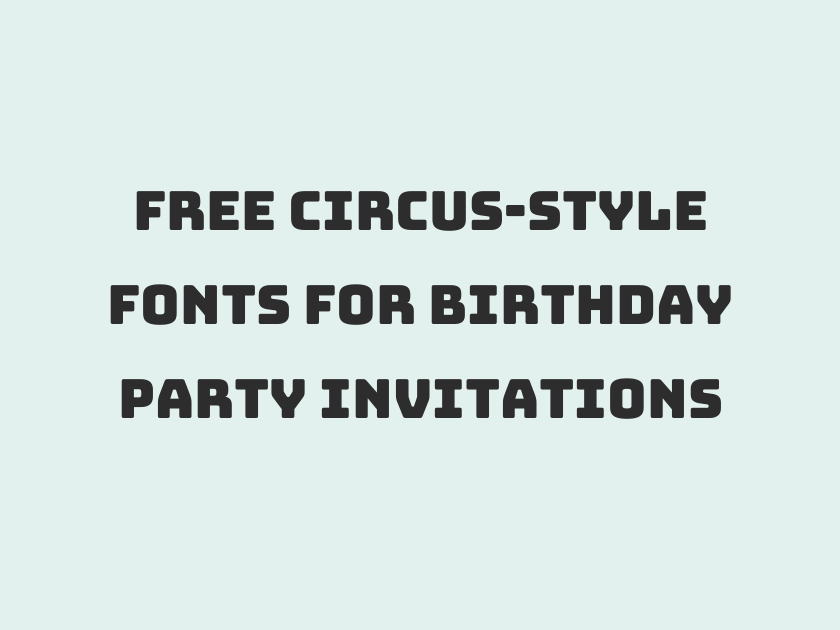
70 Best Free Circus-Style Fonts for Birthday Party Invitations
Circus and carnival typography carries a built-in sense of ballyhoo that suits birthday invitations perfectly, especially for kids’ parties, first birthdays, and any big-top-themed celebration. Bold poster lettering, sideshow banner scripts, and bubbly rounded letterforms all conjure that same midway excitement long before a single balloon gets tied. The good news for anyone designing invites, banners, or party favors is that free Google Fonts now cover nearly every corner of that vintage fairground look, from marquee-light display faces to hand-painted sideshow scripts, so there is no need to hunt down a paid circus font when a genuinely great alternative is already available for download.
Whether the party leans toward a classic red-and-white striped tent, a retro carnival midway, or a modern confetti-bright bash, a circus-style Google Font here can set the tone before the guests even open the envelope.
1. Bungee
Bungee was designed for urban signage, and that street-sign boldness translates surprisingly well to circus marquees. Its thick, evenly weighted letterforms read as loud and confident even in small doses, making it a strong choice for a headline like “You’re Invited” on a party poster or banner.
2. Bungee Inline
This inline sibling keeps all of Bungee’s chunky swagger but adds a hollow channel down the center of each letter, giving it a neon-marquee flicker. It works best at larger sizes, where that inline detail can actually be seen.
3. Bungee Shade
A drop-shadow variant that instantly reads as vintage carnival signage, this one gives flat headlines an illusion of dimension without any extra design work. It pairs naturally with a striped or polka-dot background.
4. Bungee Spice
The most decorative member of the Bungee family layers a bright secondary color into each letterform, giving titles a festive, sprinkled look straight out of the box. Save it for short, punchy headlines rather than long lines of text.
5. Bangers
Bangers borrows its energy from vintage comic book lettering, and that same loud, slightly wobbly enthusiasm reads as pure sideshow ballyhoo on a party invite. It has real personality even in a single word, which makes it ideal for a big “SURPRISE!” or a birthday child’s name across the top of the card.
Because it is so expressive, it is best reserved for headlines rather than body copy; at small sizes the exaggerated angles start to lose clarity.
6. Luckiest Guy
Few free fonts say carnival cartoon quite like Luckiest Guy. Its thick, bouncy caps feel hand-painted by a fairground sign artist, and it remains one of the most popular choices for kids’ birthday graphics for good reason.
It pairs nicely with a simpler sans serif for the invitation’s fine print, so the party details stay legible while the headline does the shouting.
7. Fredoka
Fredoka’s soft, rounded shapes give it a friendly, huggable quality that suits younger birthday crowds especially well. The semibold weight has enough presence for a title while staying pleasant and easy to read.
8. Boogaloo
There is a laid-back, retro-poster bounce to Boogaloo that feels closer to a 1960s fairground banner than a modern app icon. It is a solid, slightly quieter alternative to louder display faces when the invitation needs a touch of restraint.
9. Chewy
Chewy looks exactly like its name suggests, thick, glossy, and a little cartoonish, like letters made of taffy. It is a natural fit for candy-themed or carnival-snack birthday invitations.
10. Fredericka the Great
This script has a theatrical, old circus poster flair, with exaggerated flourishes that feel handwritten by a nineteenth-century sign painter. It shines as an accent line, such as “The Ringmaster invites you,” rather than as the main headline font.
11. Rye
Rye leans western wanted-poster, but that same slab-serif, sun-bleached character crosses over beautifully into vintage carnival design. It is a good pick for a rustic or old-fashioned fairground theme rather than a bright modern one.
12. Vast Shadow
A slab serif with a built-in shadow effect, Vast Shadow feels like lettering pulled straight off a weathered circus wagon. It reads best in all caps at a moderate size.
13. Modak
Originally designed for Devanagari script pairing, Modak’s Latin counterpart has a bold, rounded, candy-colored personality that suits a loud, joyful carnival invitation. It is chunky enough to hold up on a busy, illustrated background.
14. Sniglet
Bouncy castles and birthday giggles galore
Sniglet’s pillowy, rounded letterforms feel almost inflated, like a bouncy castle rendered in type. The bold weight gives it enough weight to anchor a headline without losing its playful softness.
• Styles: 2 weights (Regular, Extra-Bold)
15. Baloo 2
Join the carnival for a birthday celebration
Baloo 2 is a rounded, extra-bold display face with excellent legibility even at smaller sizes, which makes it a dependable workhorse for invitation body text that still needs some carnival warmth. It is friendlier and less flashy than many circus display fonts, so it works well as a supporting typeface.
16. Titan One
Fearless fun at the birthday circus
Titan One has the puffed-up, three-dimensional look of a strongman poster, with thick strokes that feel confident and a little heroic. It is a fitting choice for anything with a daredevil, lion-tamer, or strongman theme.
17. Fascinate
A dazzling night at the carnival
Fascinate channels art deco carnival signage, with geometric caps that feel glamorous and a little mysterious, like a fortune teller’s tent. It works especially well for adult milestone birthdays with a glitzy vintage theme.
18. Fascinate Inline
Spotlights on the birthday ringmaster
Fascinate Inline
The inline version keeps that same deco glamour but lightens the visual weight, making it easier to use across a longer headline. Pair it with the solid version of Fascinate for a layered marquee effect.
19. Cabin Sketch
Hand-painted invites for a circus party
Cabin Sketch
Cabin Sketch has a rough, hand-drawn outline that looks like it was sketched with a marker on a party poster. That informal, crafted texture makes it a nice match for DIY-style invitations with paper-cut or watercolor elements.
20. Shrikhand
Festival colors for a birthday jubilee
Bold, rounded, and a little exotic, Shrikhand brings festival energy that suits a carnival theme heavy on color and pattern. It is best used sparingly, as a single word or short phrase, given its dense weight.
• Language support: Latin, Latin Extended, Gujarati
21. Bevan
Step inside the birthday big top
Bevan is a slab serif with a sturdy, old-fashioned printing-press feel, reminiscent of a circus broadside from decades past. It reads clearly even at moderate sizes, making it a safe choice for a subtitle or date line.
22. Alfa Slab One
Bold tickets to the birthday circus
Alfa Slab One is about as loud as slab serifs get, with thick, confident strokes built for posters and banners. It captures that classic circus-ticket boldness and holds up remarkably well printed large on invitations or party signage.
Because of its heaviness, keep lines short; it was built to shout a few words rather than carry a paragraph.
23. Sancreek
Saddle up for a carnival birthday
Sancreek has a rugged, weathered western look that doubles nicely as vintage traveling-circus lettering, the kind found on old wagon signs and sideshow banners. It suits a rustic or old-timey fairground theme especially well.
24. Smokum
Sideshow surprises at the birthday tent
Smokum
With its ornate, curling serifs, Smokum looks like it belongs on an old sideshow banner advertising the bearded lady or the world’s strongest man. It is a fun, characterful choice for a themed section header rather than everyday text.
25. Berkshire Swash
An elegant invitation to the carnival
This swash script adds a graceful, looping flourish to each capital letter, giving it a more refined circus feel, closer to a fairground carousel than a rowdy sideshow. It pairs well as an accent alongside a bolder display font for the main headline.
26. Corben
Vintage circus charm for your celebration
Corben
Corben’s rounded, slightly retro serifs feel pulled from a mid-century carnival sign, warm and a little nostalgic. The bold weight gives it enough substance to anchor an invitation headline while staying easy to read.
27. Chelsea Market
Popcorn stands and birthday balloons
Chelsea Market
There is a friendly, hand-stamped quality to Chelsea Market, like lettering on a carnival food stall sign. It works nicely for menu-style details, such as a party’s cake flavors or activity list.
28. Bowlby One
Big top thrills for a big birthday
Bowlby One is thick, rounded, and unapologetically bold, built for headlines that need to be seen from across the room, or across a party. It has enough presence to stand alone as the star of the invitation.
29. Poetsen One
Funhouse fun for the birthday guest
Poetsen One
Poetsen One offers a rounded, slightly playful boldness without tipping into full cartoon territory, making it a versatile middle ground for both headlines and short subheadings. It keeps a party invite feeling upbeat without being childish.
30. Stardos Stencil
Circus crates and birthday surprises
Stencil lettering has long been tied to circus crates, tent poles, and traveling show equipment, and Stardos Stencil captures that utilitarian charm in bold, rounded caps. It is an easy way to add authentic sideshow texture to an invitation.
31. Rammetto One
Bouncing into another birthday adventure
Rammetto One has a puffy, three-dimensional look, almost like inflated balloon letters, that suits a lighthearted kids’ carnival theme. It is best used at larger sizes where its rounded detailing can really show.
32. Fruktur
A curious carnival birthday awaits
Fruktur
Fruktur mixes a blackletter structure with a quirky, hand-inked feel, giving it an old-world sideshow poster charm. It is unusual enough to make a party headline feel a little mysterious and memorable.
33. Fontdiner Swanky
Retro carnival vibes for your party
Fontdiner Swanky
This one leans mid-century diner more than big top, but its bouncy, hand-lettered retro charm crosses over nicely into vintage fairground design. It is a good option for a birthday theme that mixes carnival with a nostalgic soda-shop feel.
34. Fugaz One
The show starts at the birthday tent
Fugaz One
Fugaz One is a slanted, energetic slab serif that feels like it is caught mid-motion, fitting for a party invite announcing something exciting. Its forward lean gives even a short headline a sense of momentum.
35. Frijole
Ornate invitations to the birthday sideshow
Frijole
Frijole’s thick, ornamental strokes have a hand-carved, circus-wagon quality that works well for short decorative headlines. It is heavy enough to demand attention, so it is best kept to a single word or phrase.
36. Grandstander
Grandstand seats for a birthday spectacle
Grandstander
Grandstander is a variable font with a bouncy, slightly irregular baseline that gives text a playful, hand-tossed energy without sacrificing legibility. That flexibility across weights makes it useful for both a party’s headline and its supporting details.
37. Gluten
Sticky sweet treats at the carnival
Gluten
True to its name, Gluten has a soft, doughy roundness that feels sweet and squeezable, well suited to a candy or bakery-themed birthday carnival. The bold weight keeps it readable while preserving that playful stretch.
38. Gorditas
Round balloons and birthday laughter
Gorditas
Gorditas is short, wide, and cheerfully rounded, giving headlines a friendly, bubble-letter warmth. It works nicely for a young child’s birthday invitation where softness matters more than drama.
39. Jolly Lodger
The Ringmaster requests your presence
Jolly Lodger
Jolly Lodger looks like hand-lettering from an old carnival banner, uneven and a little rough around the edges in the best way. That imperfect charm makes it one of the more genuinely circus-flavored scripts available for free.
40. Kavoon
A magic show for the birthday star
Kavoon
Kavoon has thick, rounded strokes with a slightly whimsical, storybook quality, useful for a magic-show or fantasy-carnival birthday theme. It works best in short bursts rather than long headlines.
41. Kelly Slab
Ticket booth open for the birthday party
Kelly Slab
A sturdy, rounded slab serif, Kelly Slab has the kind of no-nonsense boldness found on old admission tickets and carnival signage. It is legible enough to double as a subheading font alongside a flashier display face.
42. Knewave
Chunky letters for a bold birthday bash
Knewave
Knewave’s thick, rounded, slightly rough-edged letterforms feel hand-carved into wood, evoking an old fairground sign painted in a hurry. It has plenty of personality for a headline but can feel heavy in long lines.
43. Lacquer
Painted signs for a carnival celebration
Lacquer
Lacquer mimics the look of brush-painted signage, glossy and a little uneven, much like hand-lettered carnival banners of decades past. It suits a headline that wants texture and history rather than crisp modern polish.
44. Lilita One
Come celebrate under the big top
Lilita One
Lilita One is rounded, bold, and endlessly cheerful, one of the most reliably party-friendly display fonts on Google Fonts. It reads clearly at nearly any size, which makes it a dependable pick for a first-time designer putting together an invitation.
45. Londrina Solid
Birthday tickets, one ring at a time
Londrina Solid
Londrina Solid is a rounded, geometric display face with real poster-scale presence in its black weight. It is part of a family with several companion styles, which opens up easy pairing within a single invitation suite.
• Styles: 4 weights (Thin to Black)
46. Londrina Outline
Outlined invites for a carnival birthday
Londrina Outline
The outline version of Londrina works well layered over a bright color or pattern, letting the background peek through each letterform like a lit-up marquee sign. Use it as a decorative accent rather than the primary headline.
47. Londrina Shadow
Shadowy fun at the fairground party
Londrina Shadow
This shadowed variant adds instant depth to a headline, giving it a dimensional, retro sign-painted look straight out of the box. It pairs naturally with the solid or outline styles from the same family.
48. Londrina Sketch
Sketchy sideshow surprises for a birthday
Londrina Sketch
Rough and hand-drawn in feel, Londrina Sketch brings a scrappy, carnival-poster texture to a headline without needing any extra illustration. It works especially well on invitations that lean rustic or DIY.
49. Monoton
Neon lights spell out happy birthday
Monoton was built to mimic neon tube signage, and few free fonts capture carnival midway lighting quite as convincingly. On a dark background it looks genuinely lit up, making it a striking choice for a nighttime carnival or fairground-themed party.
It is a display-only font best kept to short words; its thin, looping strokes lose clarity quickly in longer lines or small sizes.
50. Passero One
Playful party invites for young ringmasters
Passero One
Passero One is rounded and friendly with a slight informal wobble, giving it a handmade, kid-drawn charm. It suits a young child’s birthday invite nicely, especially alongside bright illustrations.
51. Patua One
Bold birthday tickets for the sideshow
Patua One
Patua One is a confident, rounded slab serif with strong legibility, making it a good anchor font for an invitation’s main details even when paired with a flashier script for the headline.
52. Paytone One
Friendly clowns invite you to celebrate
Paytone One
Paytone One is round, bold, and approachable, closer to a friendly cartoon than a rowdy sideshow, which makes it well suited to gentle, kid-focused party invitations.
53. Peralta
Quirky carnival charm for the birthday kid
Peralta
Peralta has a slightly uneven, hand-inked quality that feels playful and a little offbeat, like a sign painted by a carnival artist working freehand. It is distinctive enough to give an invitation real character without shouting.
54. Plaster
Weathered posters for a vintage circus theme
Plaster
Plaster’s chunky, worn-looking letterforms feel like paint peeling off an old circus banner, giving it genuine vintage texture. It suits a sepia-toned or antique-styled invitation far better than a bright modern one.
55. Rock Salt
Handwritten invites to the birthday carnival
Rock Salt is a loose, marker-style script that feels like it was scrawled quickly on a party flyer. It works best for short, casual notes rather than a formal headline.
56. Rubik Moonrocks
Bubbly birthday balloons floating skyward
Rubik Moonrocks
Part of the wider Rubik display family, Moonrocks has a bubbly, three-dimensional roundness that suits a bright, balloon-filled carnival theme. It is a fun, unusual accent for a party title.
• Language support: Latin, Latin Extended, Cyrillic, Cyrillic Extended, Hebrew
57. Rubik Puddles
Splashy fun at the carnival party
Rubik Puddles
Rubik Puddles has a liquid, dripping quality to its rounded letters, giving headlines a playful, almost cartoonish wetness. It is best reserved for a short, expressive title rather than functional text.
• Language support: Latin, Latin Extended, Cyrillic, Cyrillic Extended, Hebrew
58. Sigmar One
Come see the birthday spectacular tonight
Sigmar One
Sigmar One is thick, rounded, and confident, with the kind of unmissable presence a circus poster headline needs. It stays clear and legible even printed fairly small, which is not always true of bold display fonts.
59. Sonsie One
Curvy carnival letters for the invitation
Sonsie One
Sonsie One has soft, curved terminals and a slightly retro roundness that recalls old carnival ride signage. It works nicely as a secondary headline alongside a heavier display font.
60. Trade Winds
Exotic carnival adventures for the birthday
Trade Winds
Trade Winds carries a decorative, slightly exotic flourish that suits a travel-themed or fortune-teller carnival tent invitation. Its ornamental caps are best used sparingly, for a title rather than a paragraph.
61. Ultra
Old-fashioned circus poster for a birthday
Ultra is an extra-bold slab serif with a distinctly vintage American poster feel, the kind of lettering found on old traveling show advertisements. It gives an invitation instant old-fashioned authority without needing any additional ornamentation.
62. Bagel Fat One
Chunky bold letters for party invites
Bagel Fat One
Bagel Fat One is thick and rounded almost to the point of caricature, giving it a fun, oversized bubble-letter presence. It works well for a single celebratory word splashed across the top of an invite.
• Language support: Latin, Latin Extended, Korean
63. Cherry Bomb One
Explosive birthday fun under the tent
Cherry Bomb One
Cherry Bomb One is bouncy, bold, and a little cartoonish, with just enough irregularity in its curves to feel handmade. It suits a lively, colorful carnival theme aimed at younger guests.
• Language support: Latin, Latin Extended, Japanese, Vietnamese
64. Coiny
Bubblegum letters for a birthday carnival
Coiny
Coiny is rounded and glossy, like letters blown from bubblegum, and it carries an easy, candy-shop charm. It pairs well with bright, saturated color palettes typical of carnival design.
• Language support: Latin, Latin Extended, Tamil, Vietnamese
65. Concert One
Friendly big top letters for guests
Concert One
Concert One is rounded, bold, and unfussy, a dependable choice when a headline needs carnival warmth without heavy ornamentation. It reads well at a range of sizes, from a party banner down to a save-the-date card.
66. Henny Penny
Storybook circus fun for the birthday
Henny Penny
Henny Penny has a slightly gothic, storybook quality, like lettering from an old fairy tale poster crossed with a traveling show bill. It suits a whimsical, fantasy-tinged carnival theme rather than a bright modern one.
67. Irish Grover
Whimsical birthday invites to the carnival
Irish Grover
Irish Grover has a loose, slightly wobbly boldness that feels handmade and cheerful, well suited to a casual, fun-first birthday invitation. It holds up nicely at both poster scale and smaller printed sizes.
68. Kablammo
A pow of birthday circus fun
Kablammo
Kablammo is a variable comic-style display font with a springy, exaggerated bounce built right into its default shapes. It brings an almost animated energy to a headline, fitting for a superhero-meets-carnival birthday theme.
69. Yeseva One
Elegant vintage circus for a birthday soiree
Yeseva One softens the circus theme into something more elegant, with high-contrast strokes that feel closer to a vintage theater marquee than a rowdy sideshow. It suits an adult milestone birthday with a glamorous, old-world carnival theme, especially when paired with a simple script for supporting text.
70. Ranchers
Bold poster letters for the birthday circus
Ranchers
Ranchers is a rugged, condensed display face with the compressed boldness of an old advertising poster, useful when a headline needs to fit a lot of impact into a narrow space. It suits banners and tall invitation formats particularly well.
Pairing and Using Circus Fonts Well
Most circus and carnival display fonts are built to shout a headline, not carry paragraphs. Save the boldest choices, like Bungee, Alfa Slab One, or Luckiest Guy, for a title or a name, and pair them with a plain, legible sans serif or slab for the date, time, and address.
Scripts such as Fredericka the Great, Jolly Lodger, or Berkshire Swash work best as an accent line rather than the whole invitation. A single flourish, like “The Ringmaster invites you,” is often more effective than setting an entire paragraph in a decorative script.
Test any display font at the actual print size before finalizing a design. Some of the more ornate or shadowed styles look fantastic on a screen but can lose detail once printed small on a standard invitation card.
Finally, limit an invitation to two or three fonts at most. One bold circus display face, one supporting script or accent, and one clean sans serif for practical details is usually plenty to feel festive without looking cluttered.
There is no shortage of free, genuinely well-made circus-style typefaces on Google Fonts, from neon-lit marquee faces to hand-painted sideshow scripts, all ready to give a birthday invitation that unmistakable big-top energy without spending a cent.